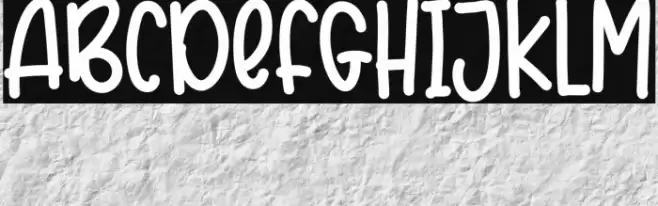
Corn Kernels Font
Corn Kernels Description
This playful and whimsical font features a handwritten style with a bold and rounded appearance. Each character is crafted with a casual flair, giving it a friendly and approachable look. The letters are slightly irregular, adding to the charm and uniqueness of the font. The strokes are consistent in thickness, providing a uniform appearance across all characters. This font includes both uppercase and lowercase letters, numerals, and a variety of special characters, making it versatile for different uses.
A playful, handwritten font with bold, rounded characters from Uncategorized fonts.
- Font: Corn Kernels
- Proposed Projects: Ideal for children's books, playful branding, greeting cards, and casual invitations.
- Overall Style: Playful
- Use Case: Logos, Headlines, Informal Text